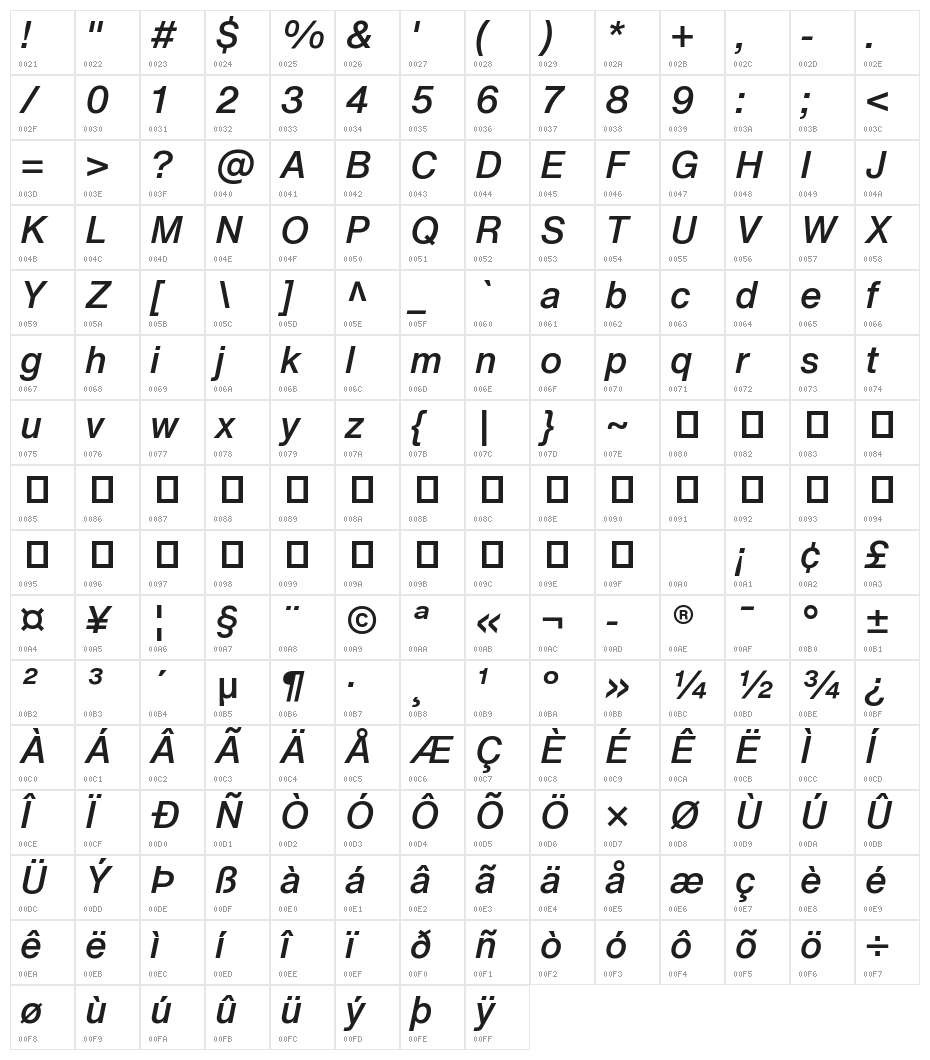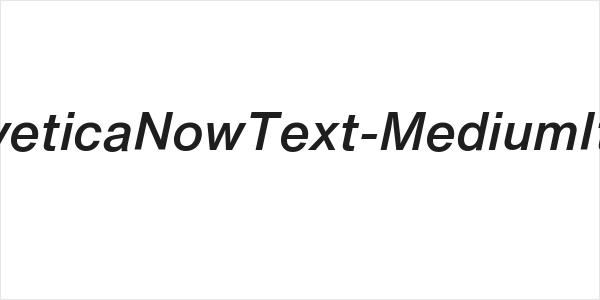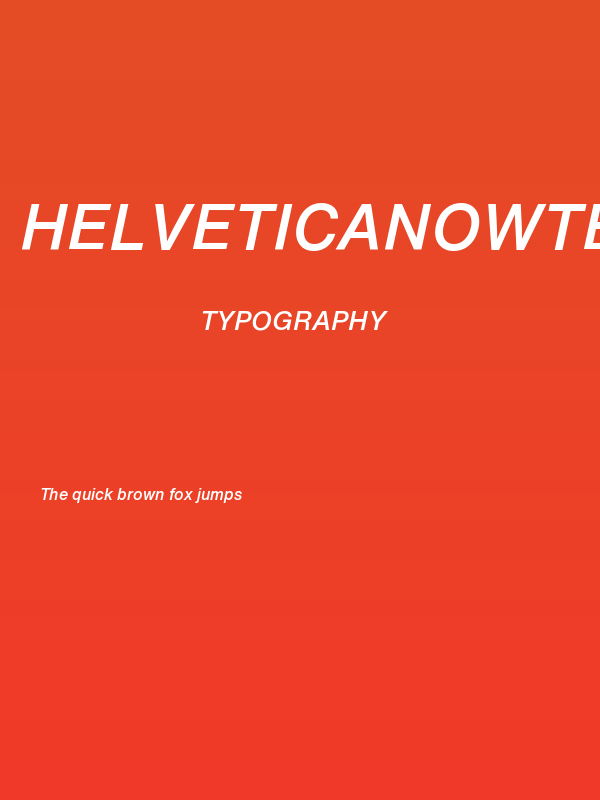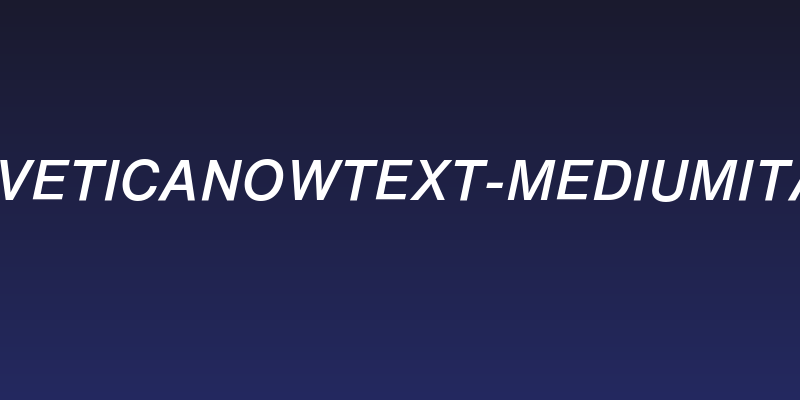
HelveticaNowText-MediumItalic Font
HelveticaNowText-MediumItalic Description
This font exhibits a clean and modern aesthetic with a slight italic slant, giving it a dynamic yet professional appearance. The characters are well-proportioned, maintaining a consistent weight throughout, which enhances readability. The sans-serif design contributes to its contemporary feel, making it versatile for various applications. The spacing between characters is balanced, neither too tight nor too wide, ensuring clarity in both digital and print formats. The font's medium weight adds a subtle emphasis without overpowering the text, making it suitable for both headlines and body text.
| Proposed Projects | Ideal for corporate branding, editorial design, web content, and advertising materials. |